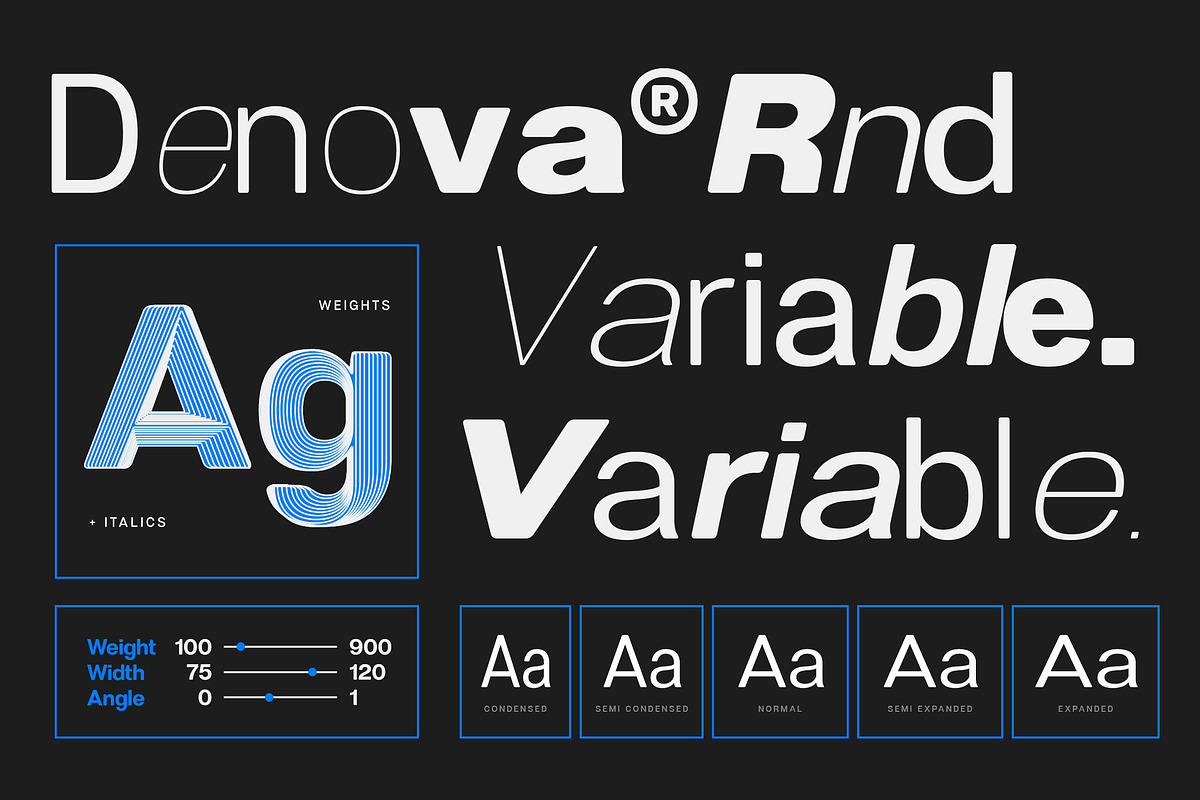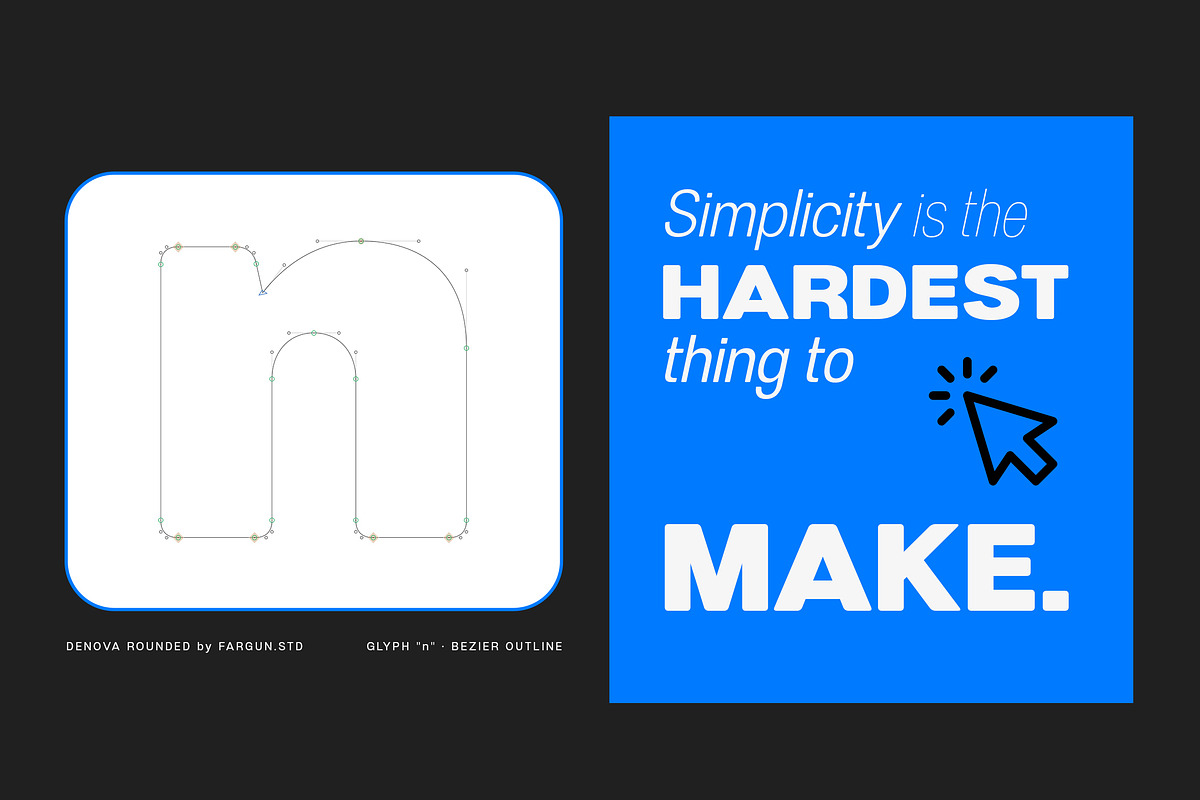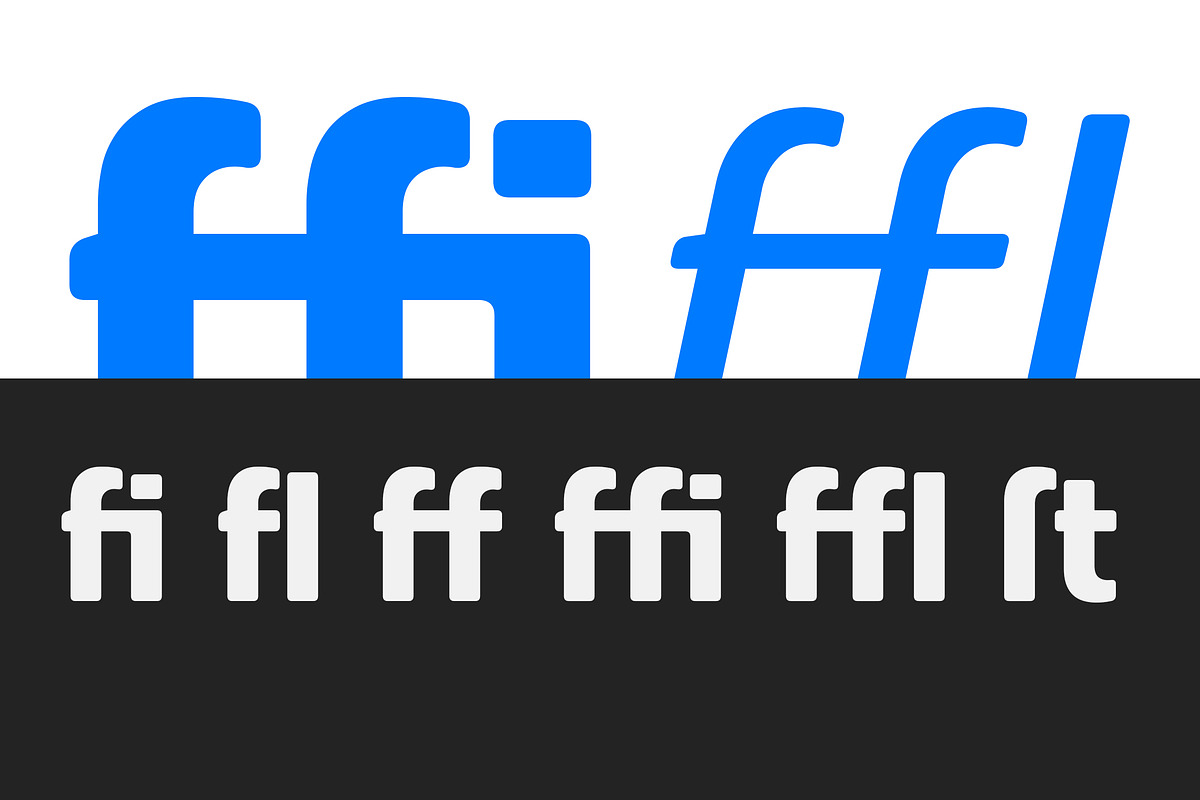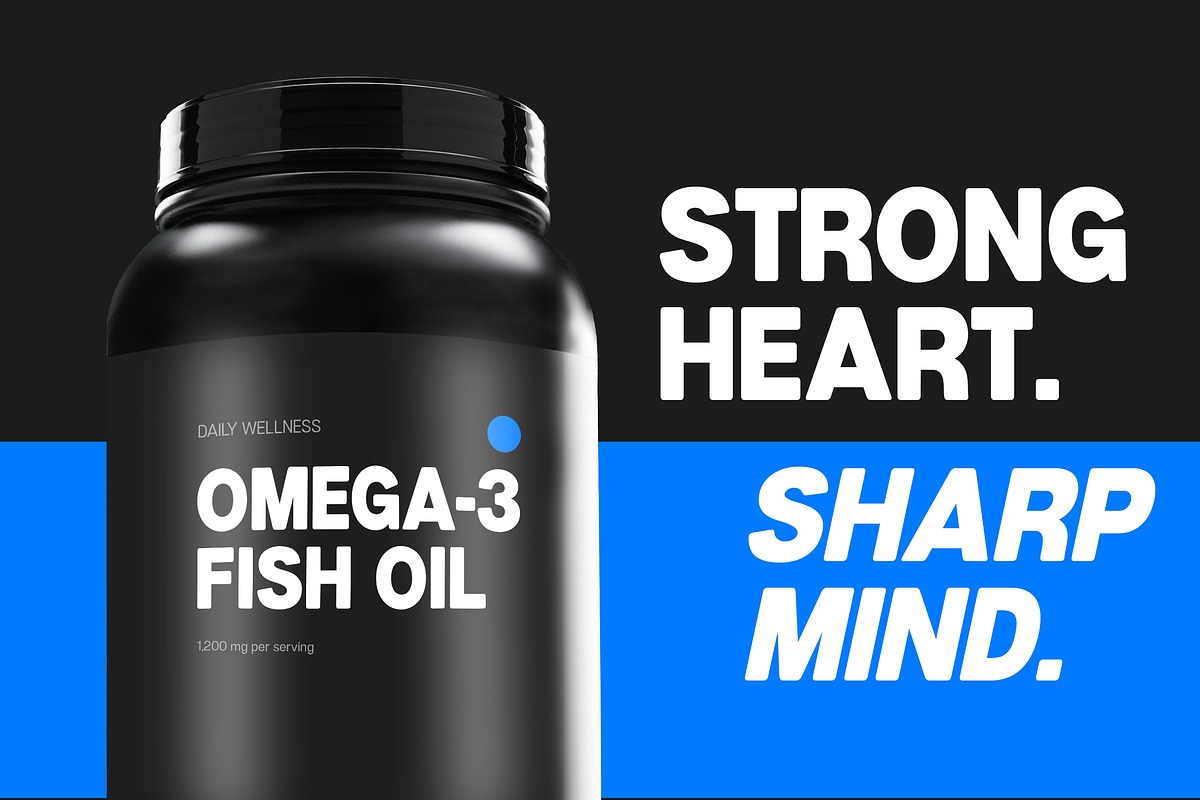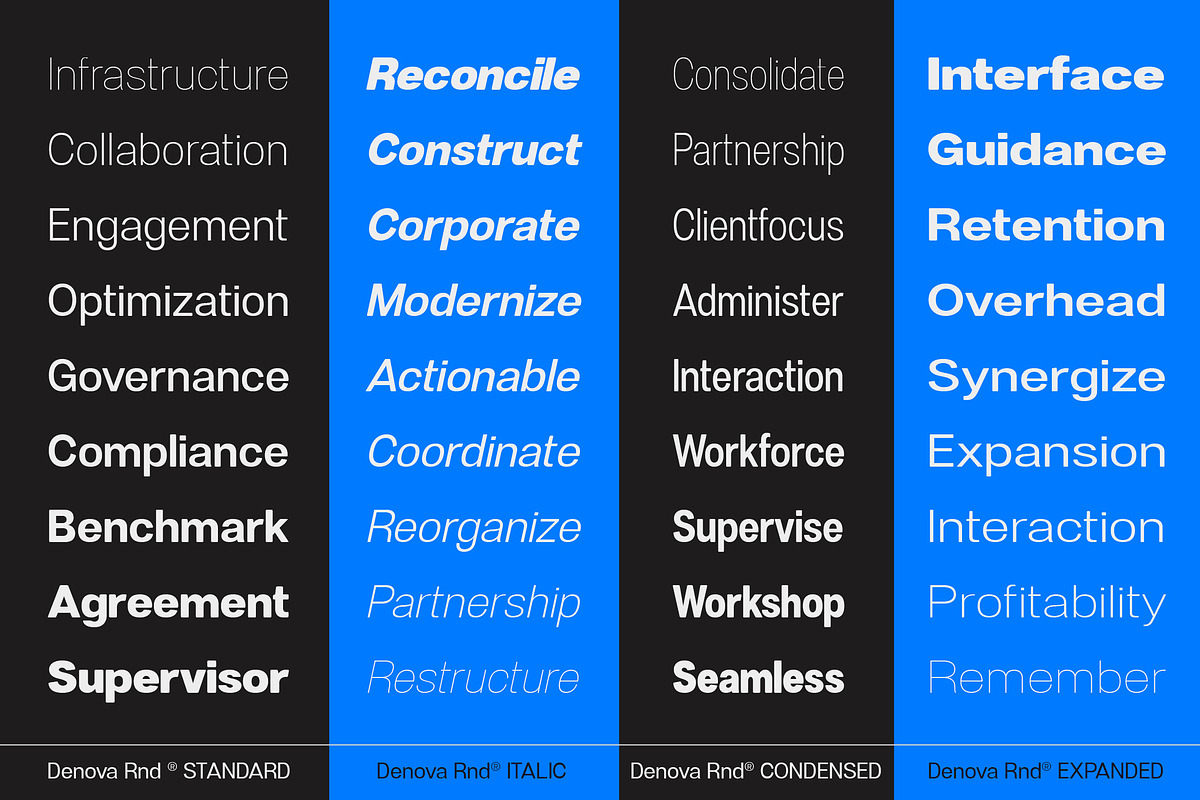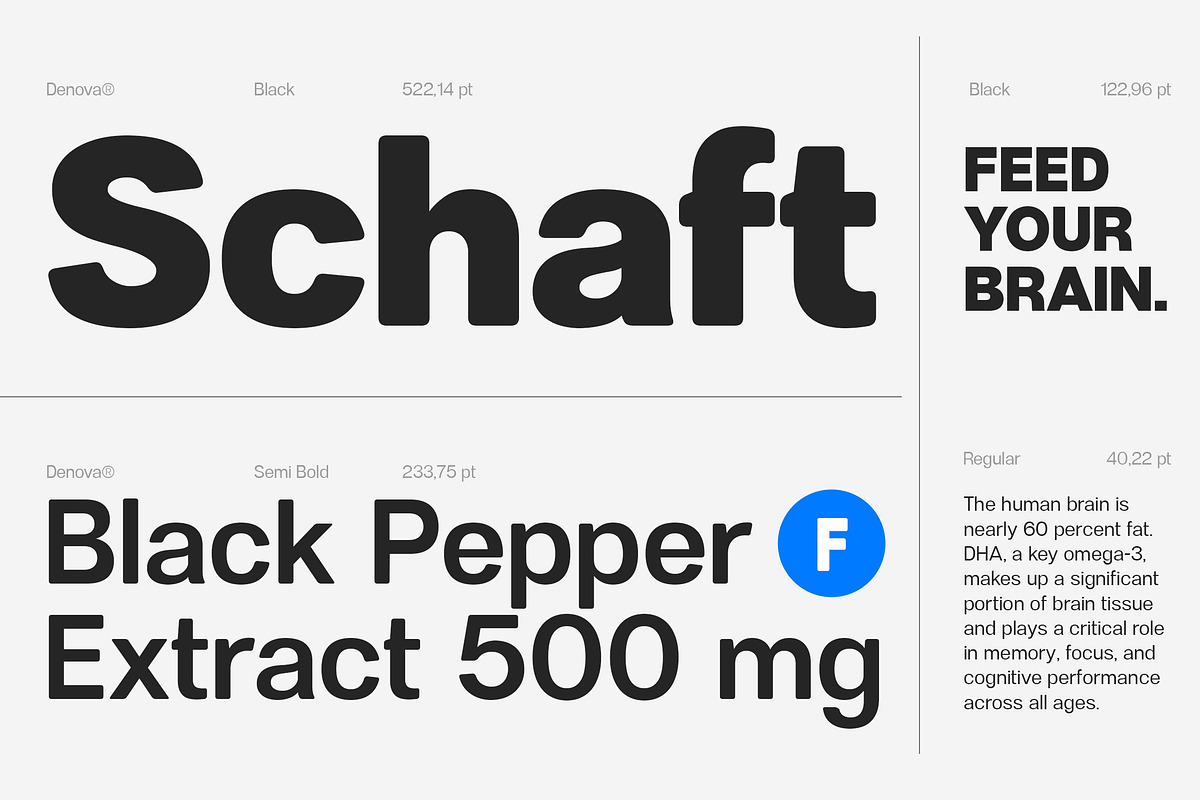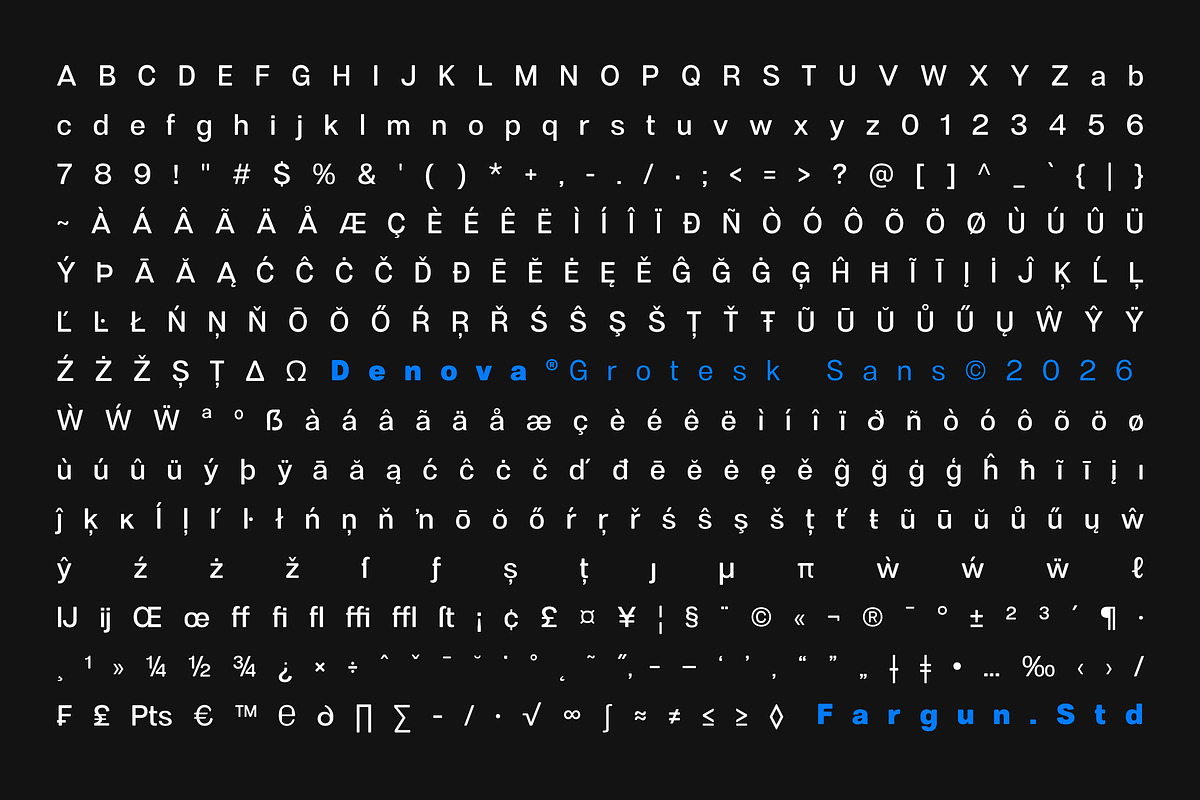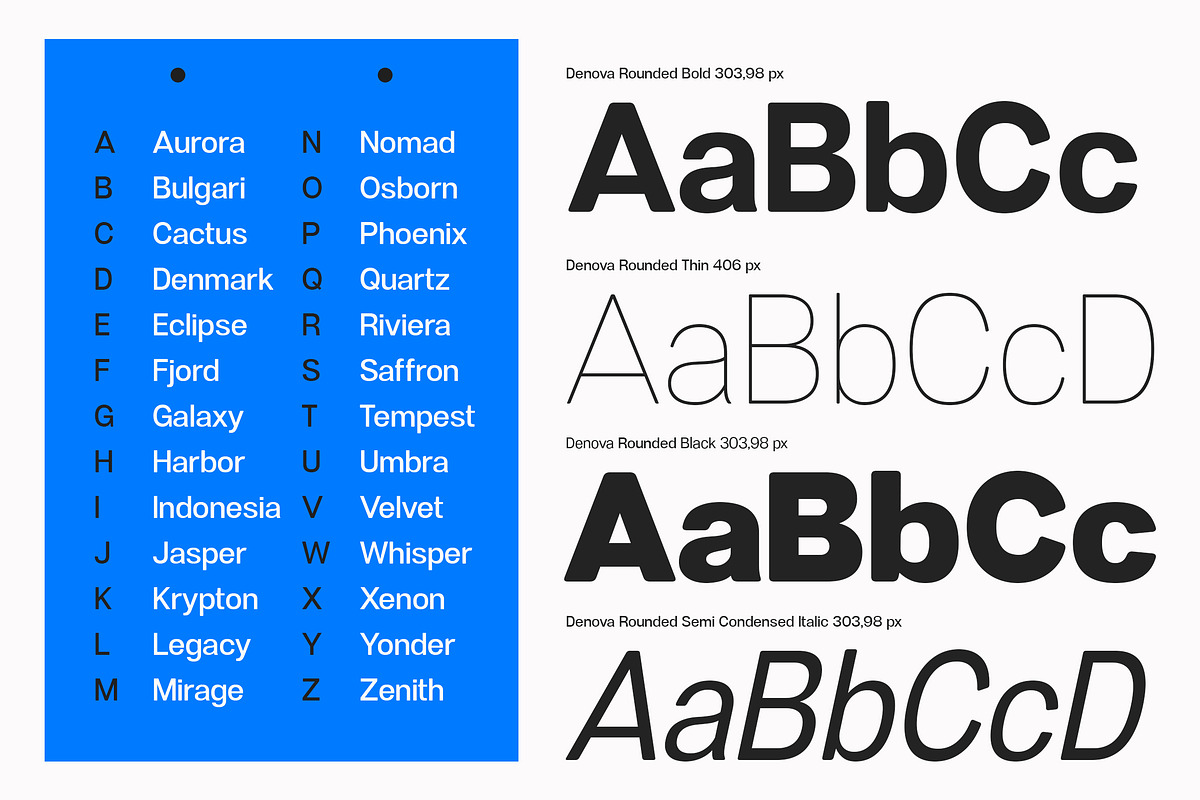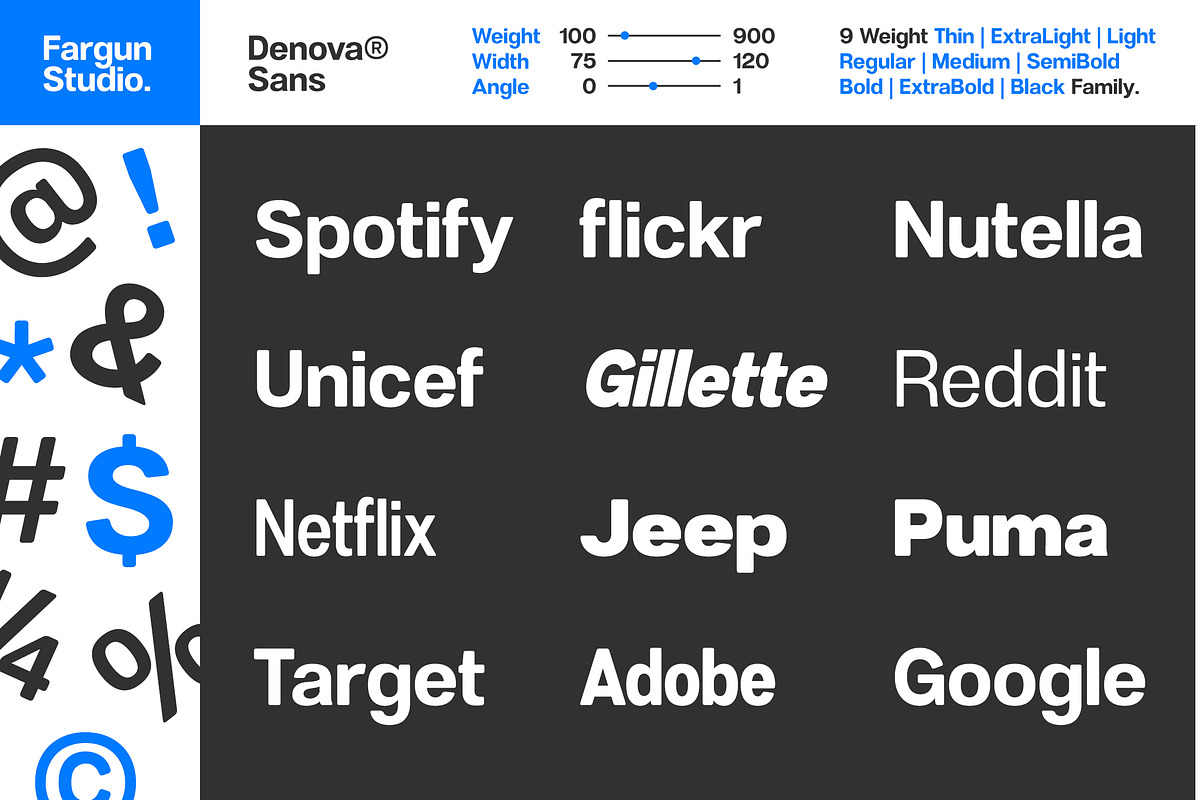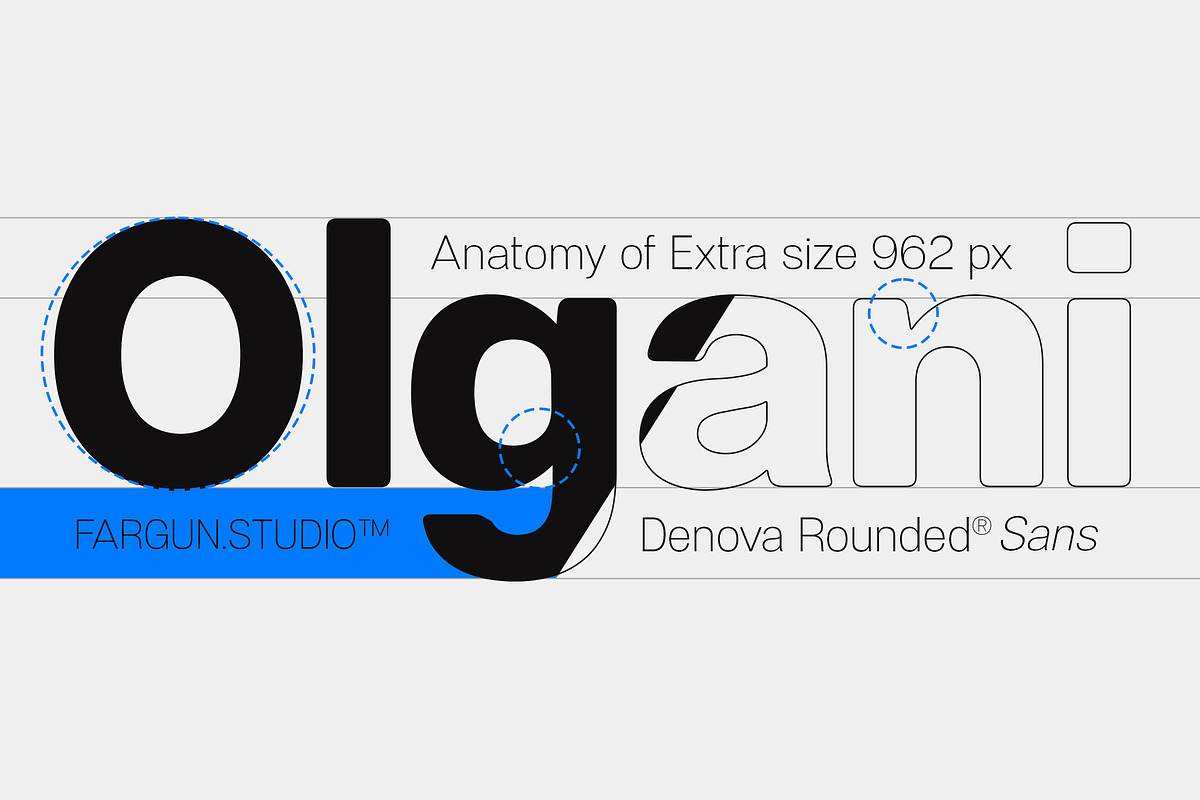
Denova Rounded
Denova Rounded is a modern variable grotesk sans serif that combines bold geometric structure with smooth rounded terminals, creating a friendly yet confident personality. Designed for maximum versatility, it delivers exceptional clarity across everything from bold headlines to clean user interfaces. Its balanced proportions, open letterforms, and contemporary aesthetics make it an excellent choice for branding, editorial design, packaging, advertising, websites, mobile apps, and corporate identity.
Built as a complete variable font family, Denova Rounded offers an extensive range of weights and widths, giving designers the freedom to create consistent visual systems while maintaining a warm, approachable appearance. Whether you're crafting a minimalist brand or a bold modern campaign, Denova Rounded adapts effortlessly to every creative challenge.
Variable Font (Weight & Width Axis)
90 Font Styles
7 Weights
9 Widths
Upright & Italic Styles
OpenType Features
Standard Ligatures
Multilingual Language Support
Perfect for logos, branding, editorial, packaging, posters, social media, web design, UI/UX, presentations, corporate identity, and modern typography.